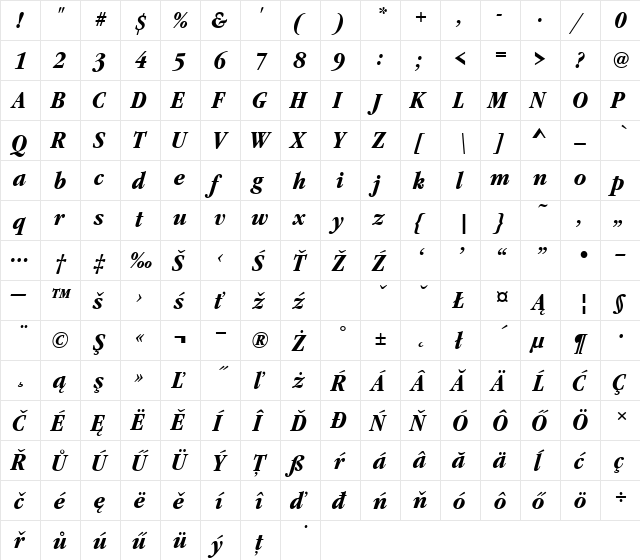
GaramItcTEECon Bold Italic Font Preview
Design Context for GaramItcTEECon Bold Italic Typeface
GaramItcTEECon Bold Italic takes a measured approach to typography — its balanced proportions and neutral character make it a reliable workhorse for both digital and print work. Its italic angle brings a sense of urgency and motion to the letterforms. Its bold stroke weight gives it real presence on the page.
Pro Tip: Try GaramItcTEECon Bold Italic for annotation and caption copy alongside an upright companion — the contrast in angle creates a dynamic but ordered typographic system.